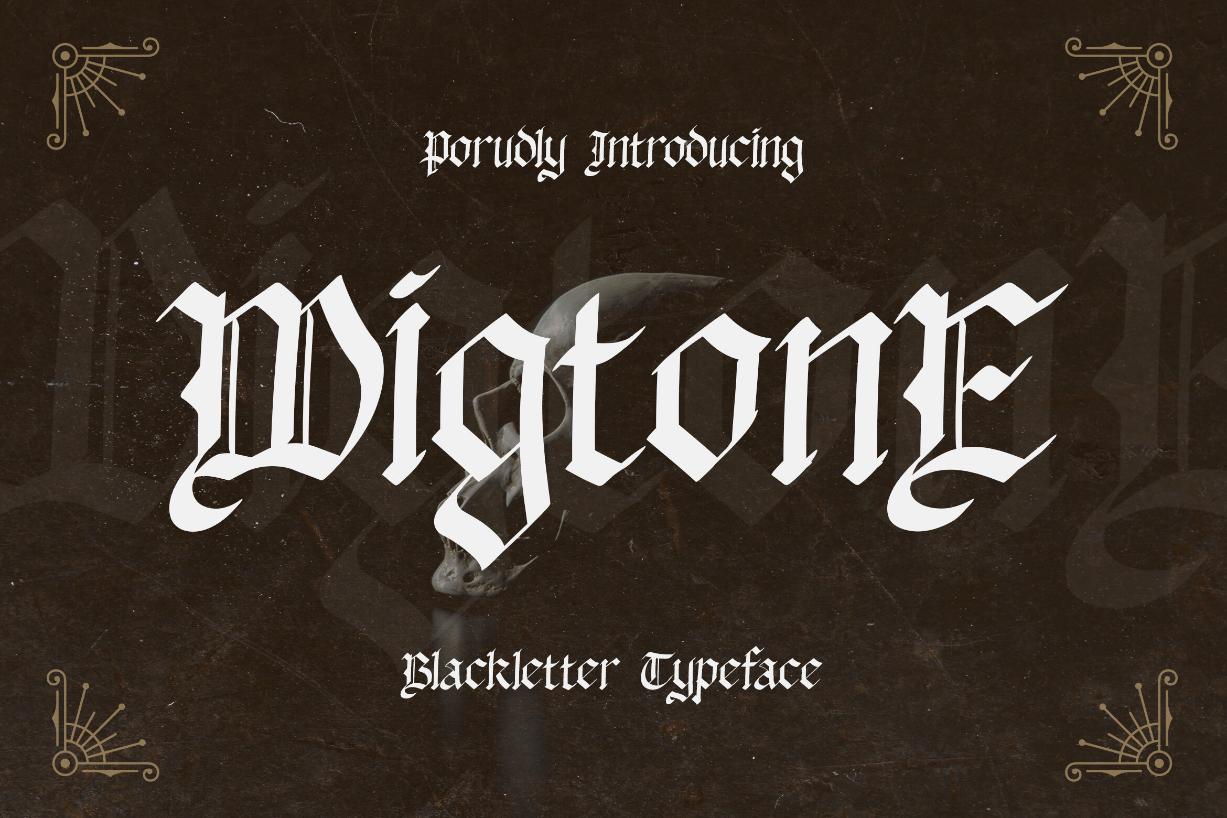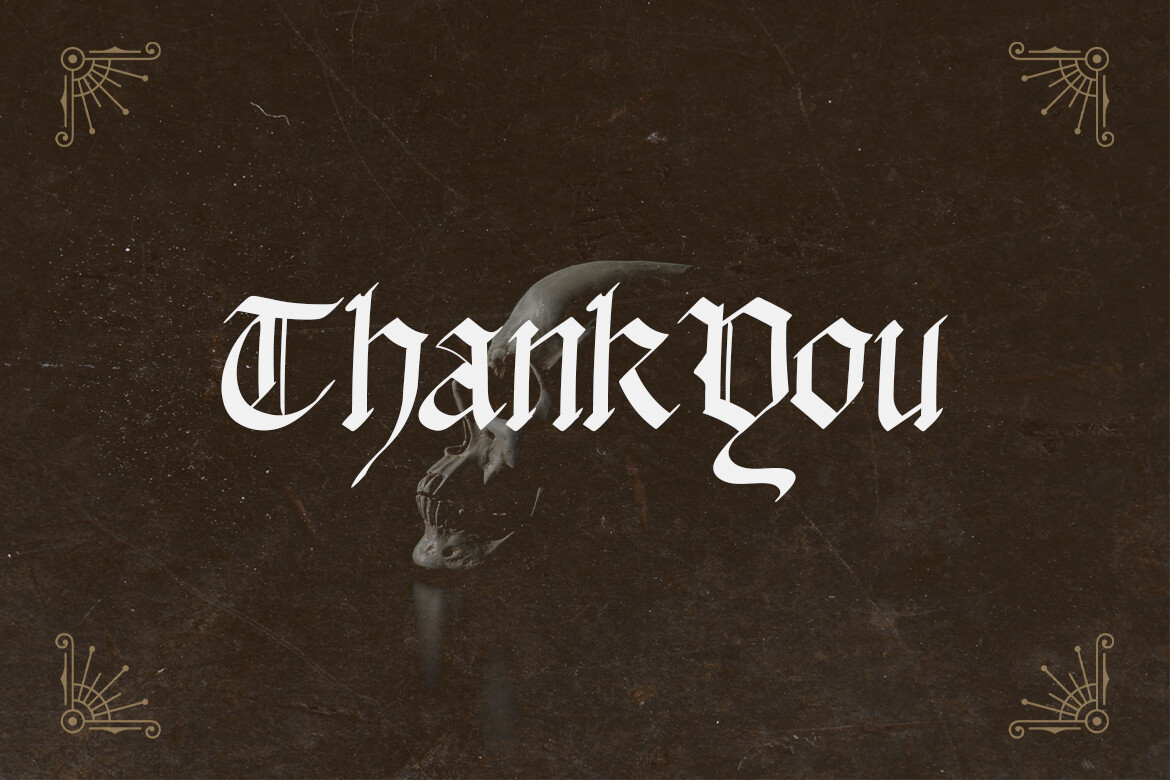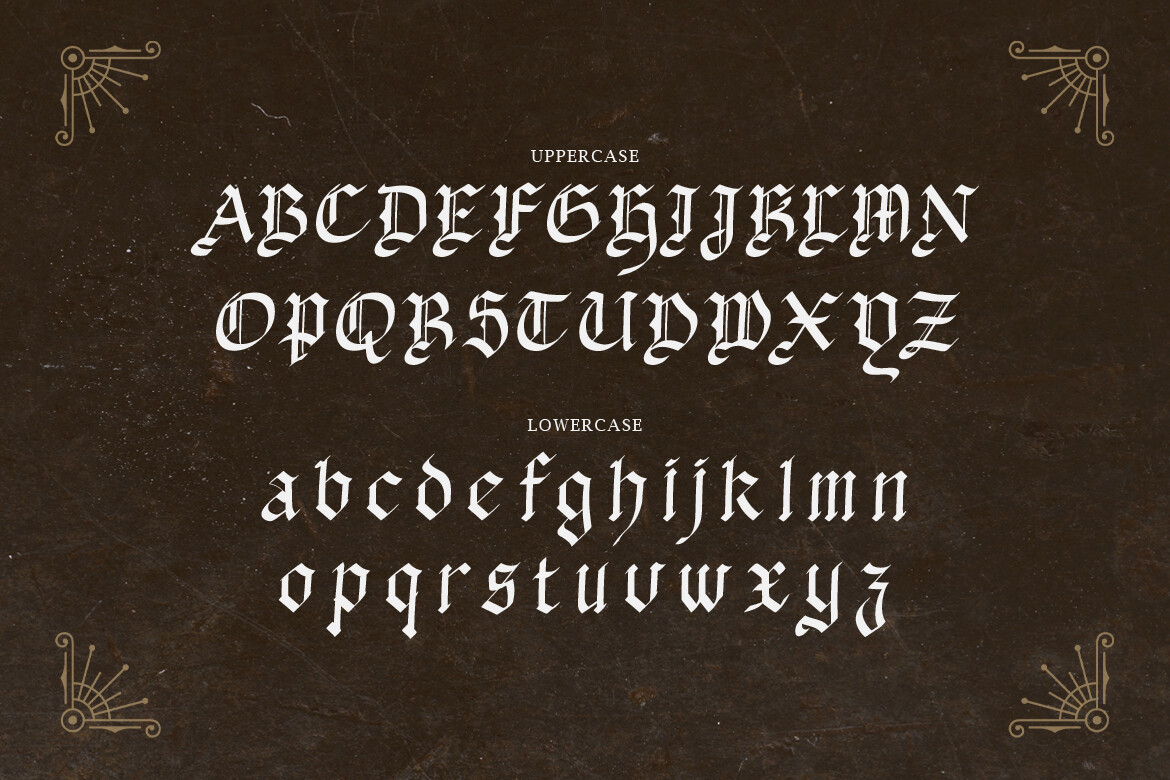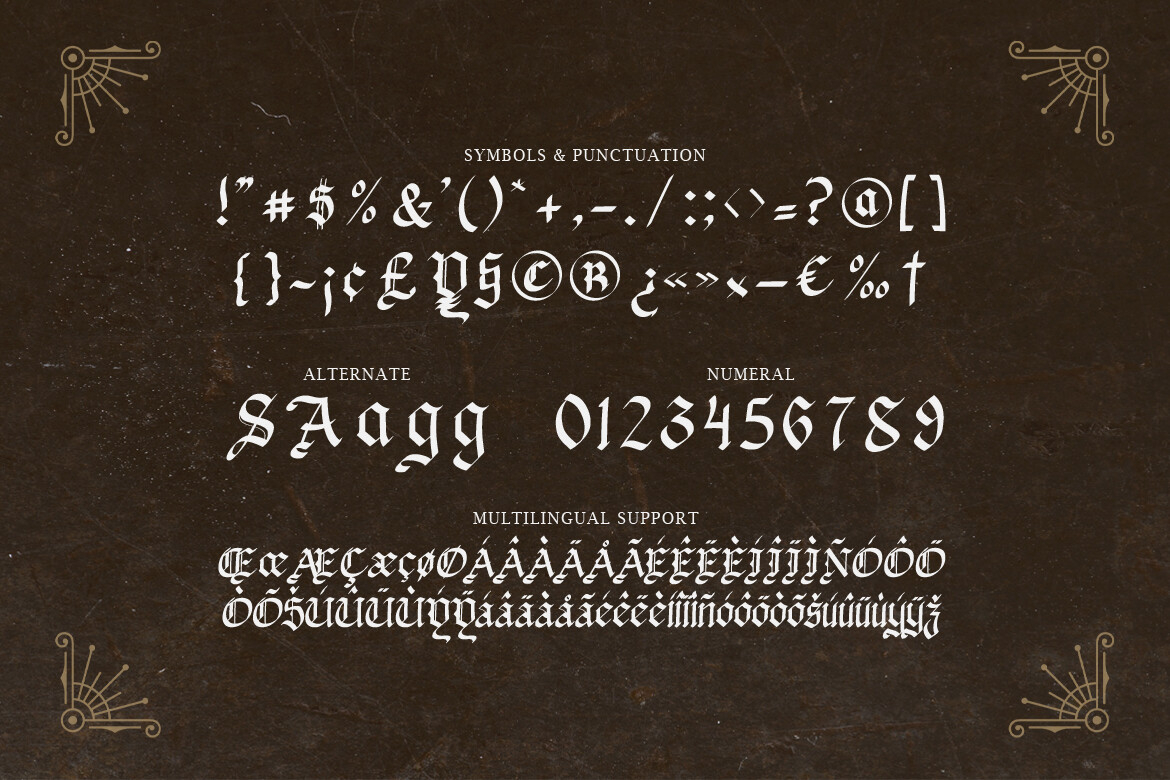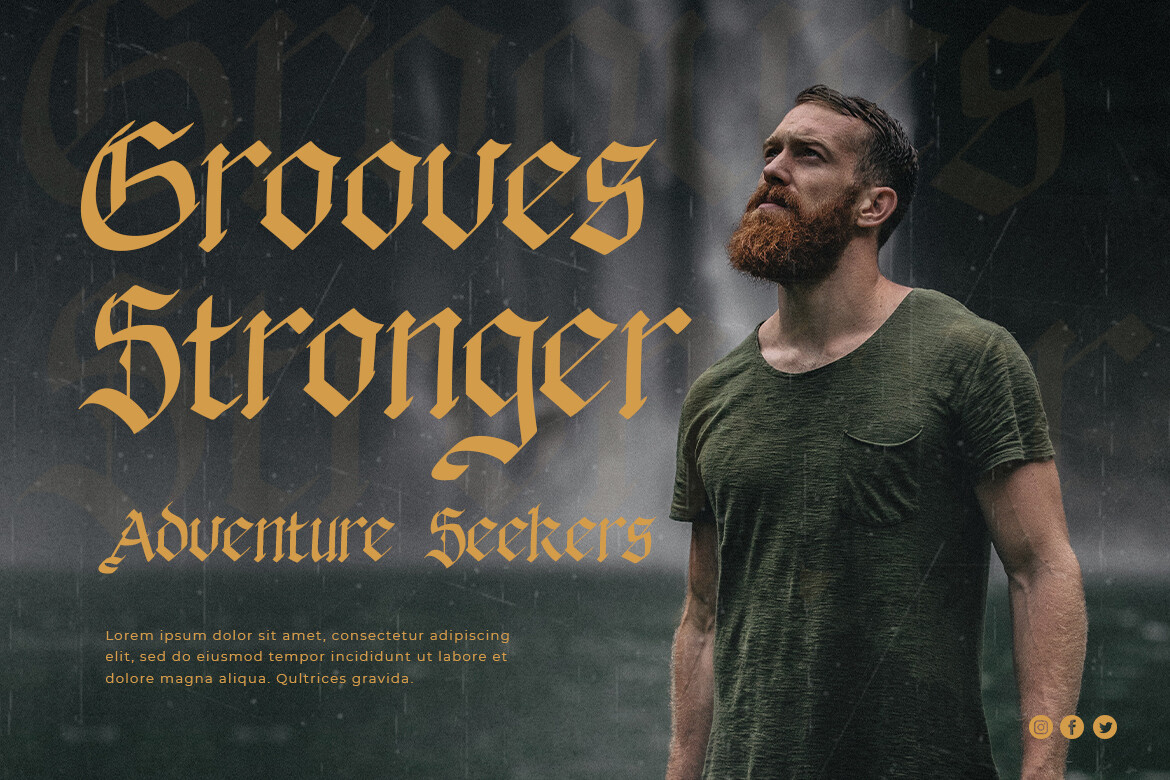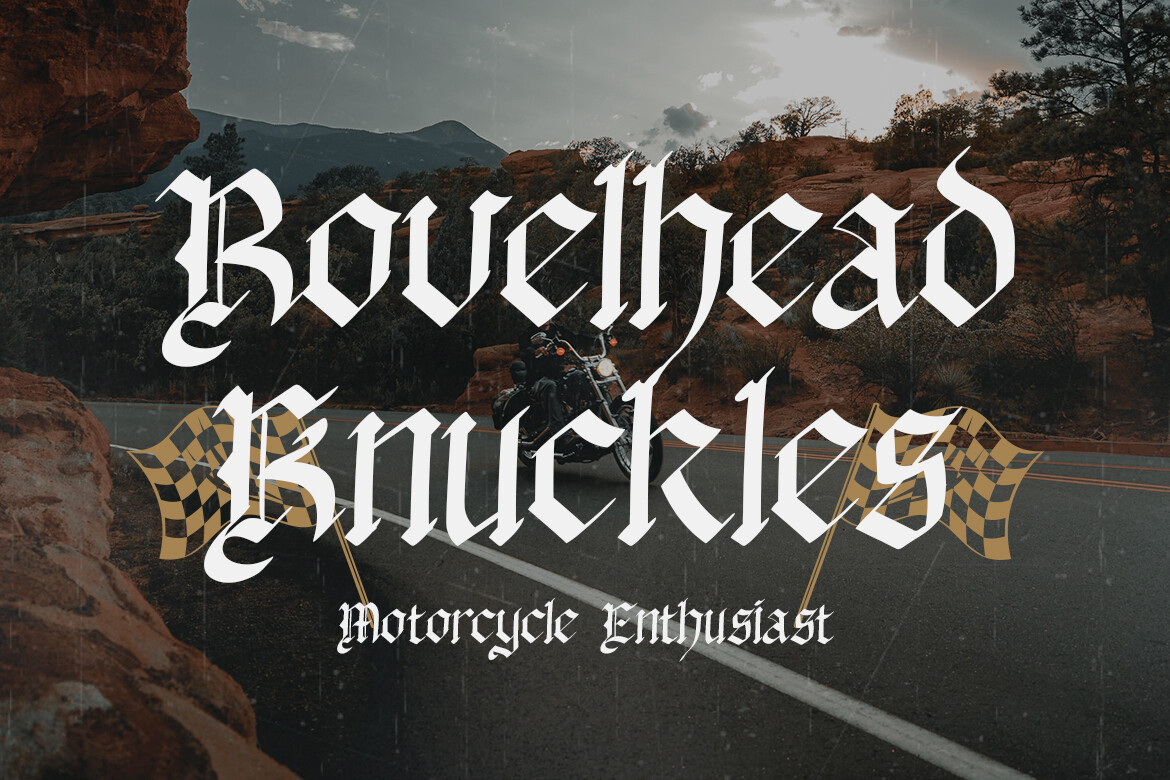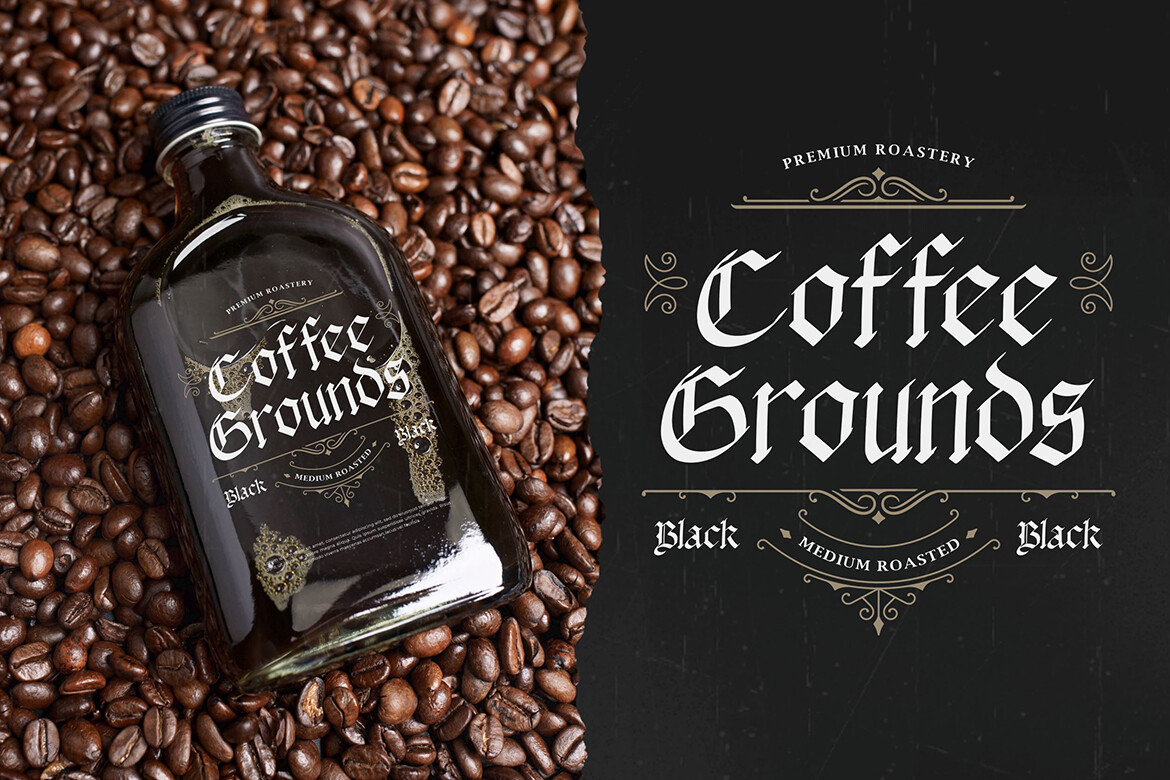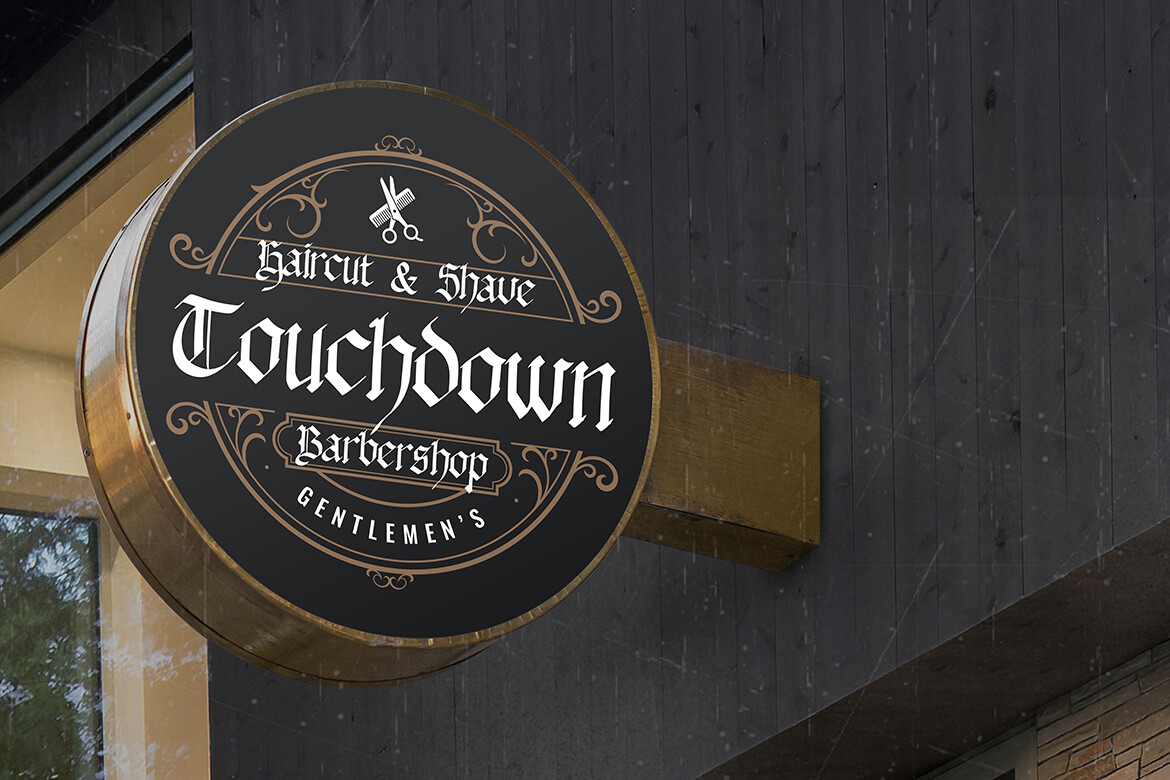
Wigtone Font
About Wigtone Font
Immerse yourself in medieval elegance with “Wigtone” – a blackletter typeface that adds a touch of historical grandeur to your designs!
With its intricate and ornate letterforms, “Wigtone” exudes the essence of the Middle Ages. Each character is meticulously crafted to infuse your projects with a sense of antiquity, making it perfect for vintage branding, medieval-inspired posters, regal invitations, and more.
Embrace the timeless beauty of “Wigtone” as it effortlessly enhances your designs. Whether you’re crafting heraldic logos, captivating book covers, majestic certificates, or antique social media graphics, this font will captivate your audience with its blackletter and historical style.
Step into the world of medieval aesthetics with “Wigtone” and let your designs resonate with the elegance of the past!